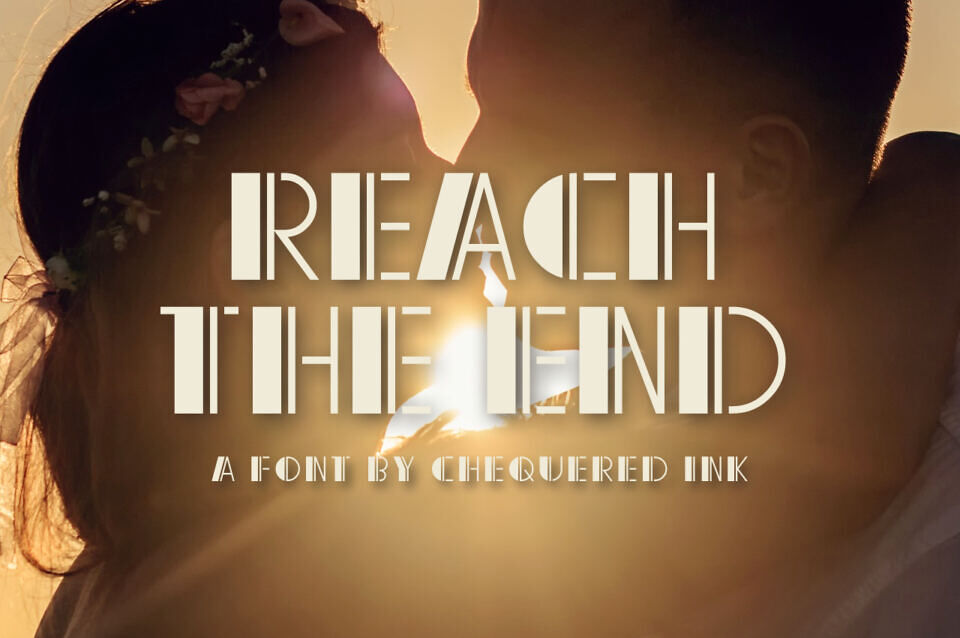
Reach The End is a bold, eye-catching display font with a retro-inspired style that instantly grabs attention. Designed with strong, semi-expanded letterforms, it delivers a powerful visual impact ideal for headlines, posters, and branding projects.
Its modern yet nostalgic aesthetic makes it versatile for both digital and print designs. With a distinctive character set and striking presence, this font is perfect for creatives looking to make their text stand out with personality and flair.